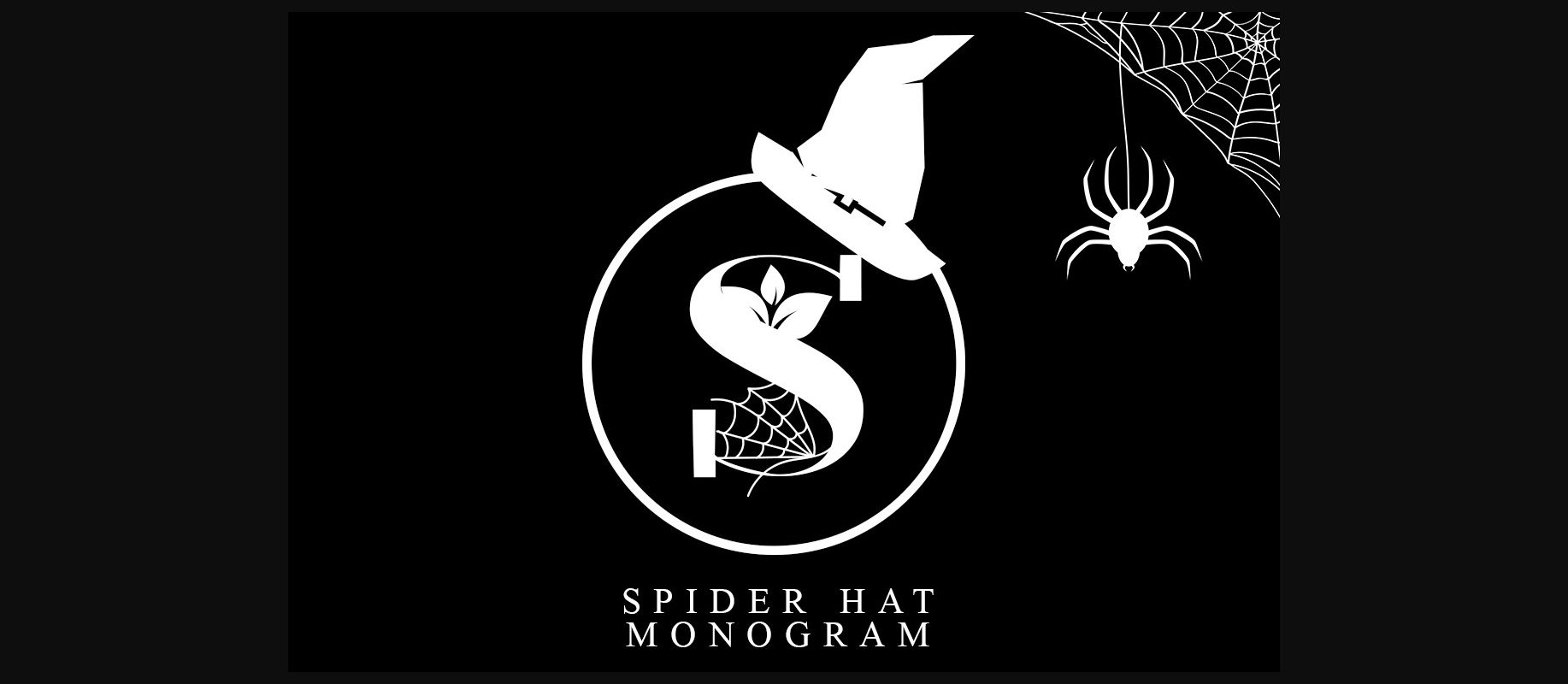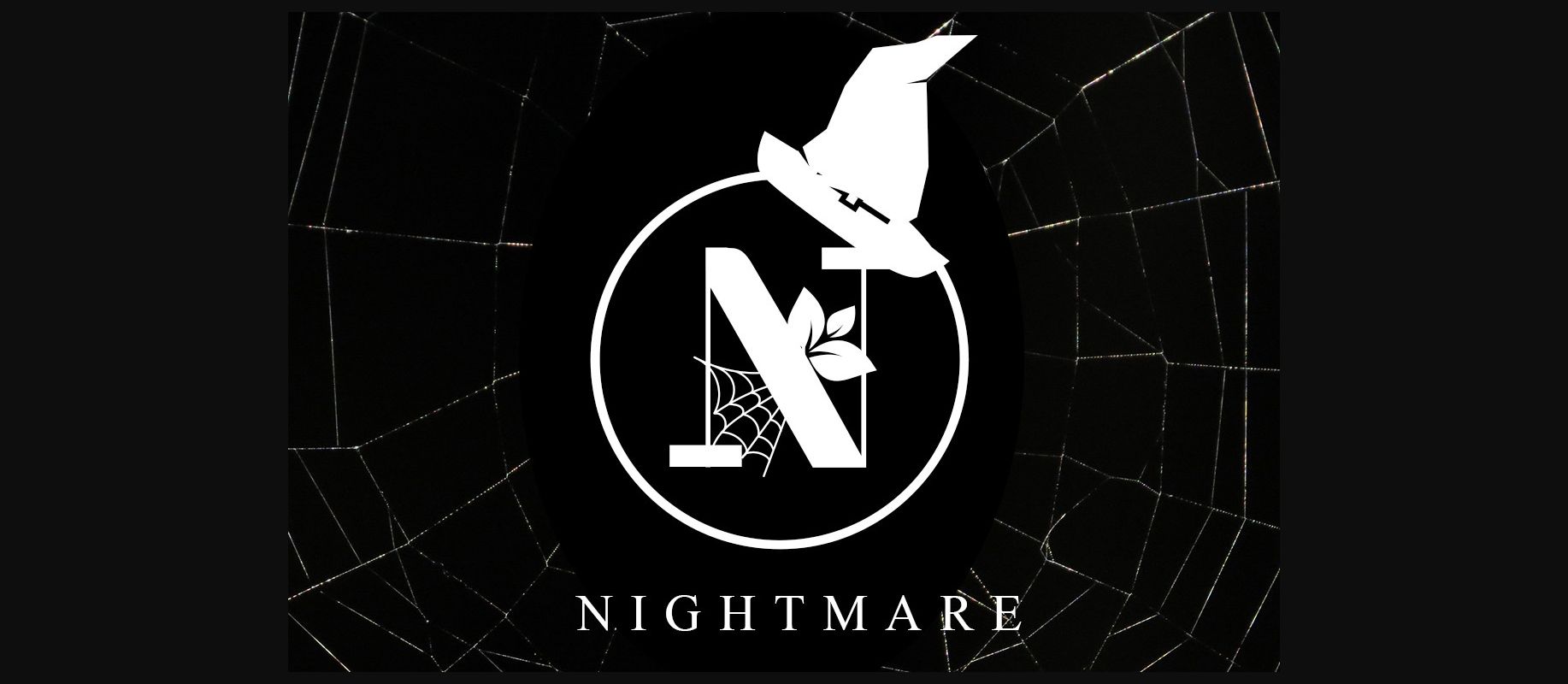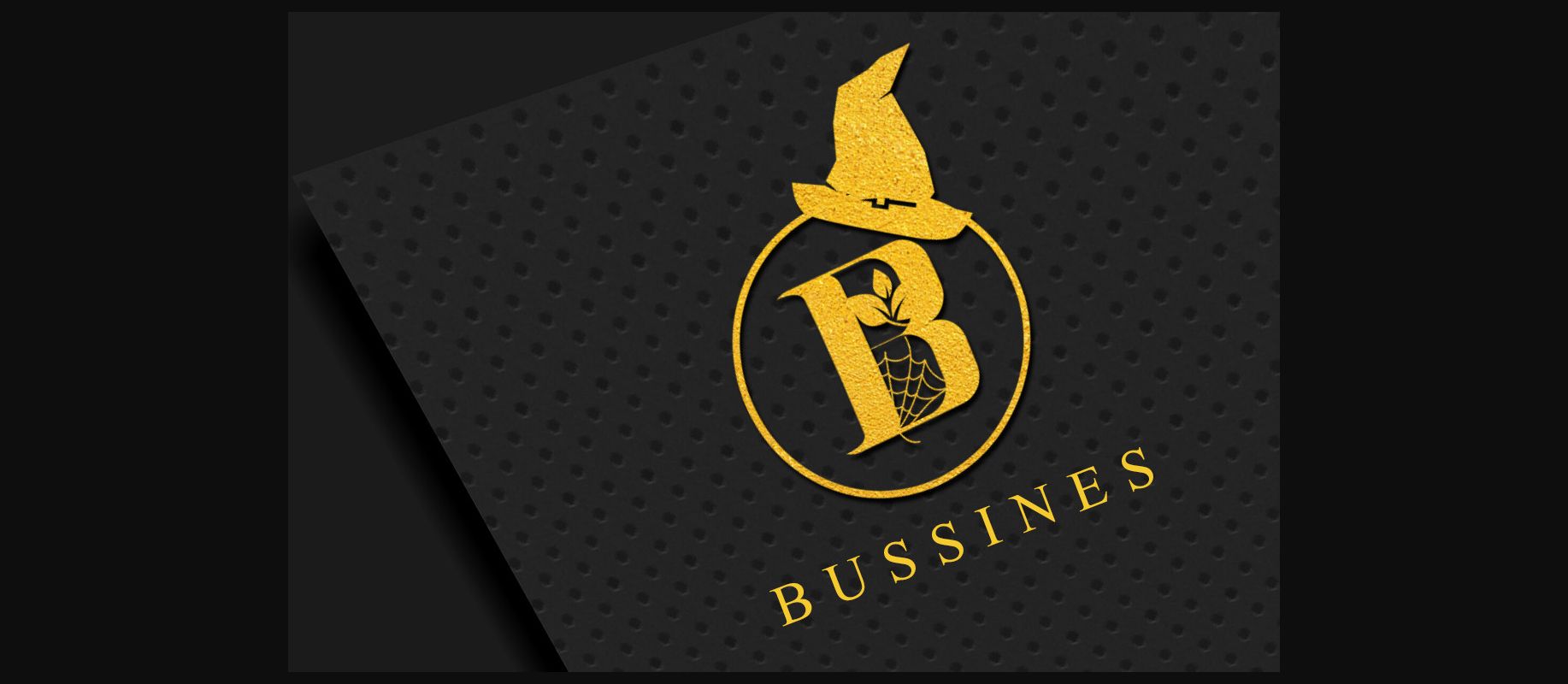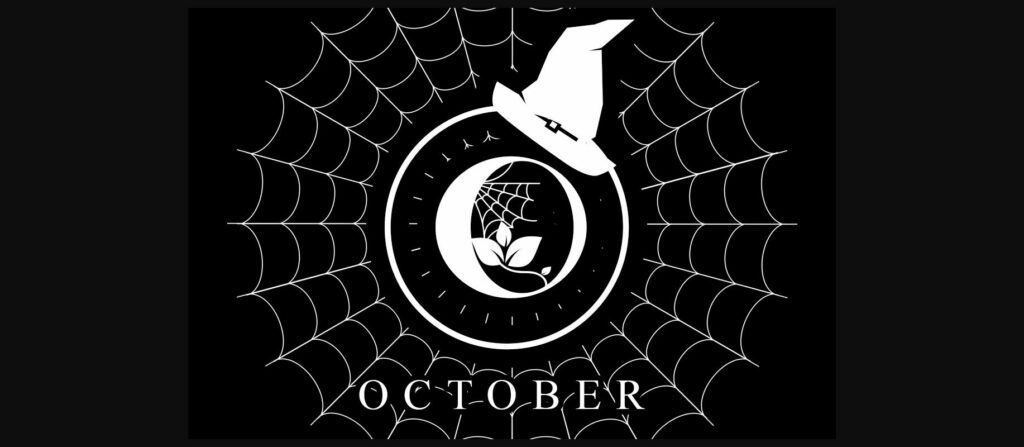
Spider Hat Monogram Font
About Spider Hat Monogram Font
Spider Hat Monogram is a unique and interestingly designed decorative font. It is perfectly suitable for any Halloween-related project or crafty idea! The only limit is your imagination.